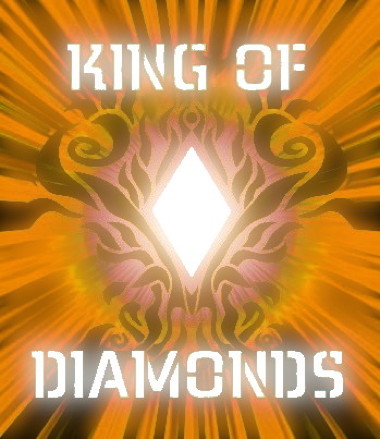
dompteuse
No animals were harmed in the making of this font.
Wild West
I love this font! You sure are now "The King of Diamonds"! Congrats!
What's to say? Perfect!
Classy and beautifully balanced. 10/10
Nice!
Congratulations! FontStruct Staff have deemed your FontStruction worthy of special mention. “dompteuse” is now a Top Pick.
Really useable font, that for some reason reminds me of Las Vegas.
Me too Vegas came right away
FABULOUS FONT